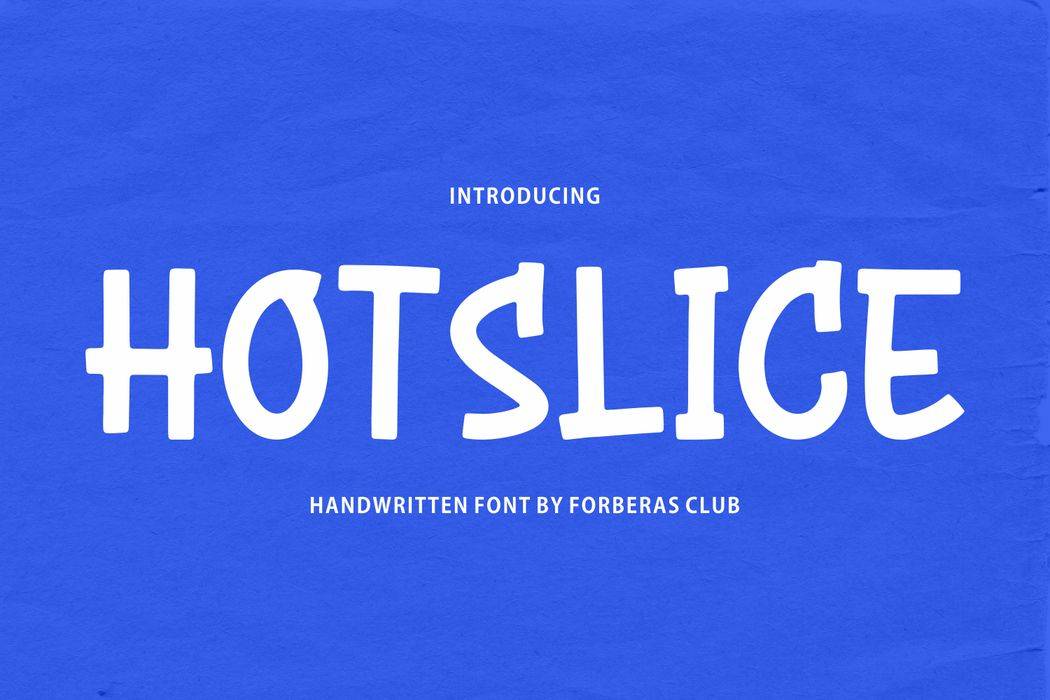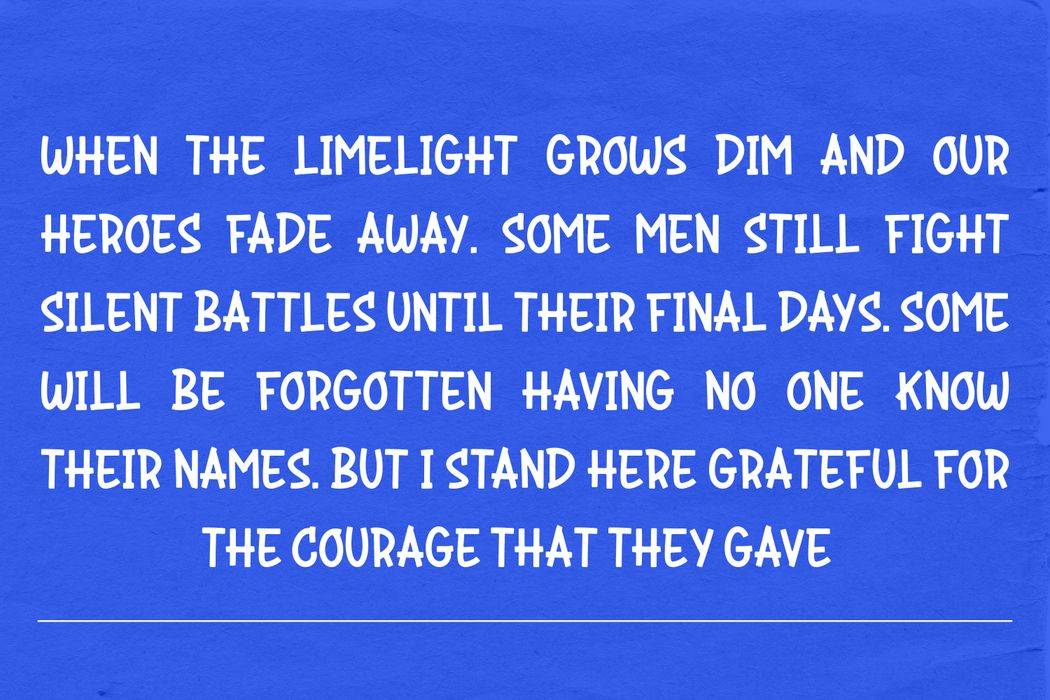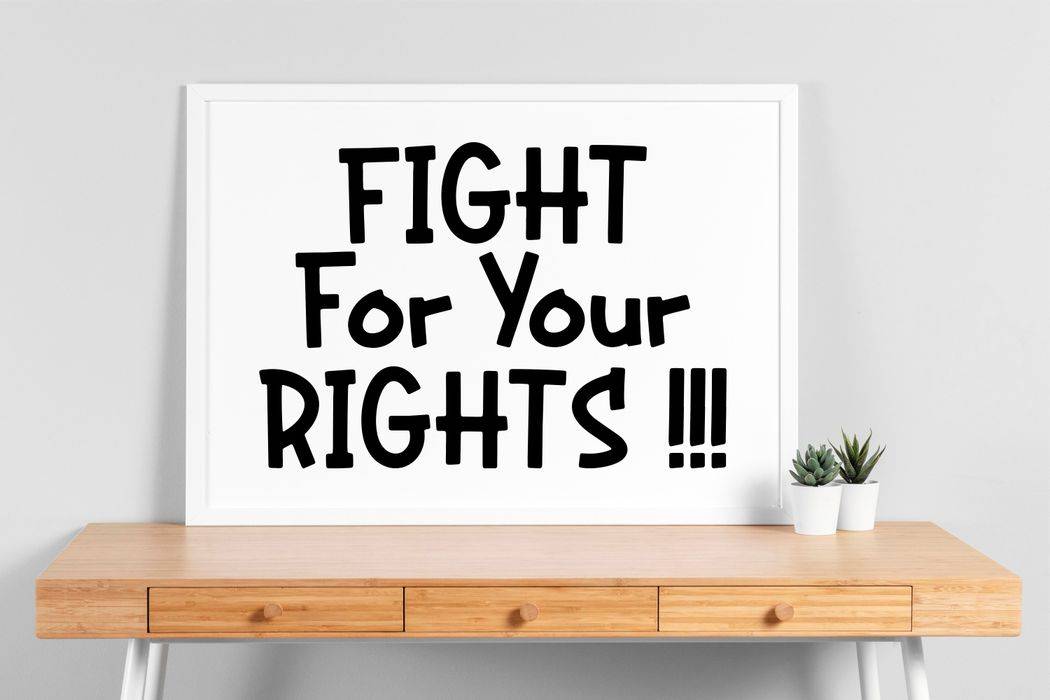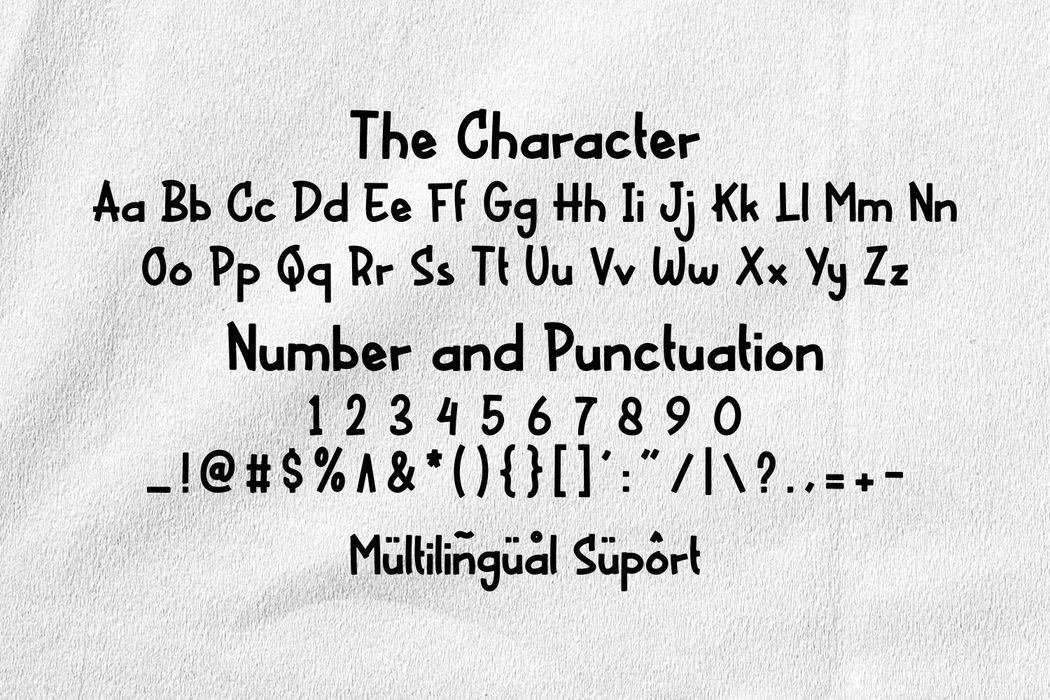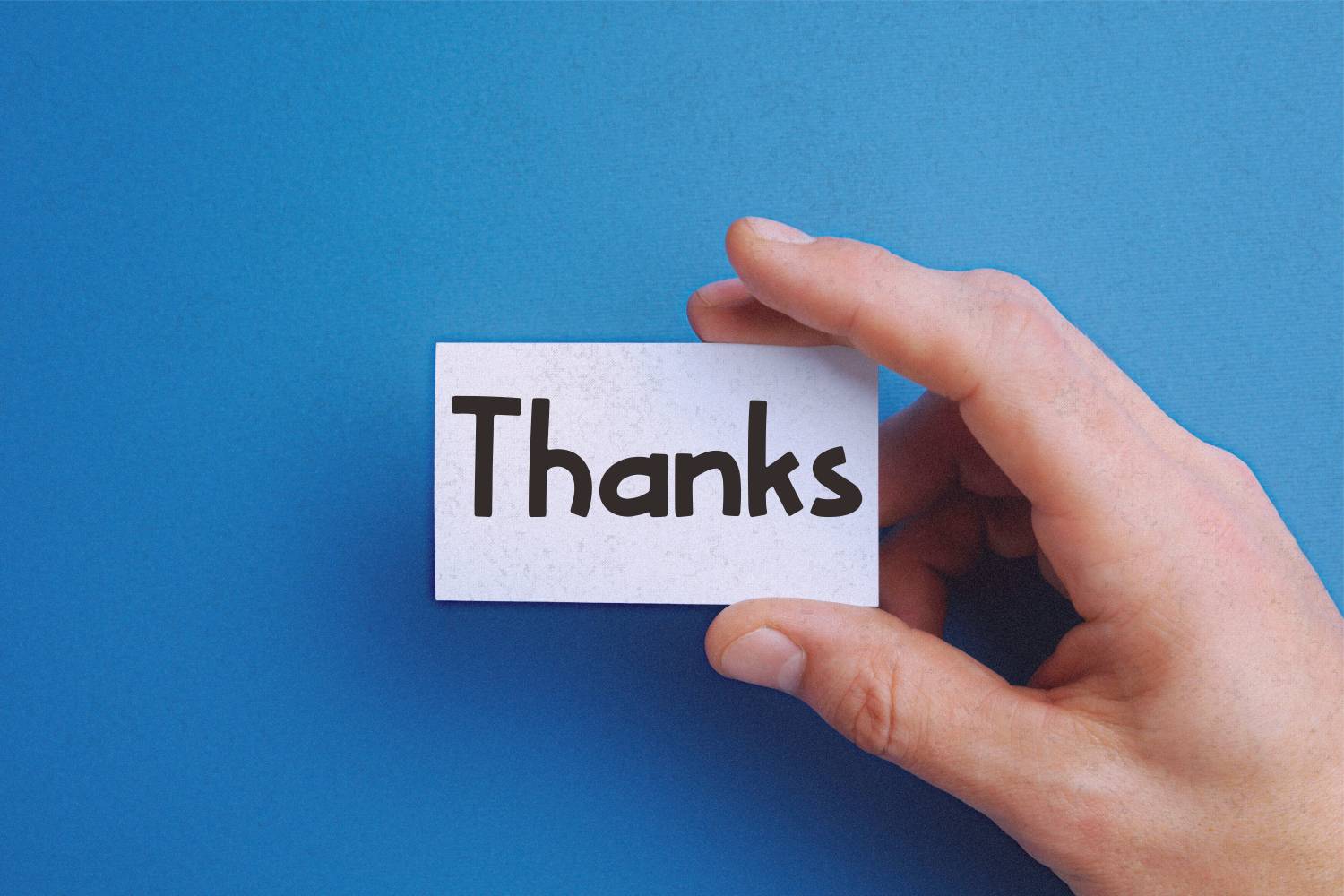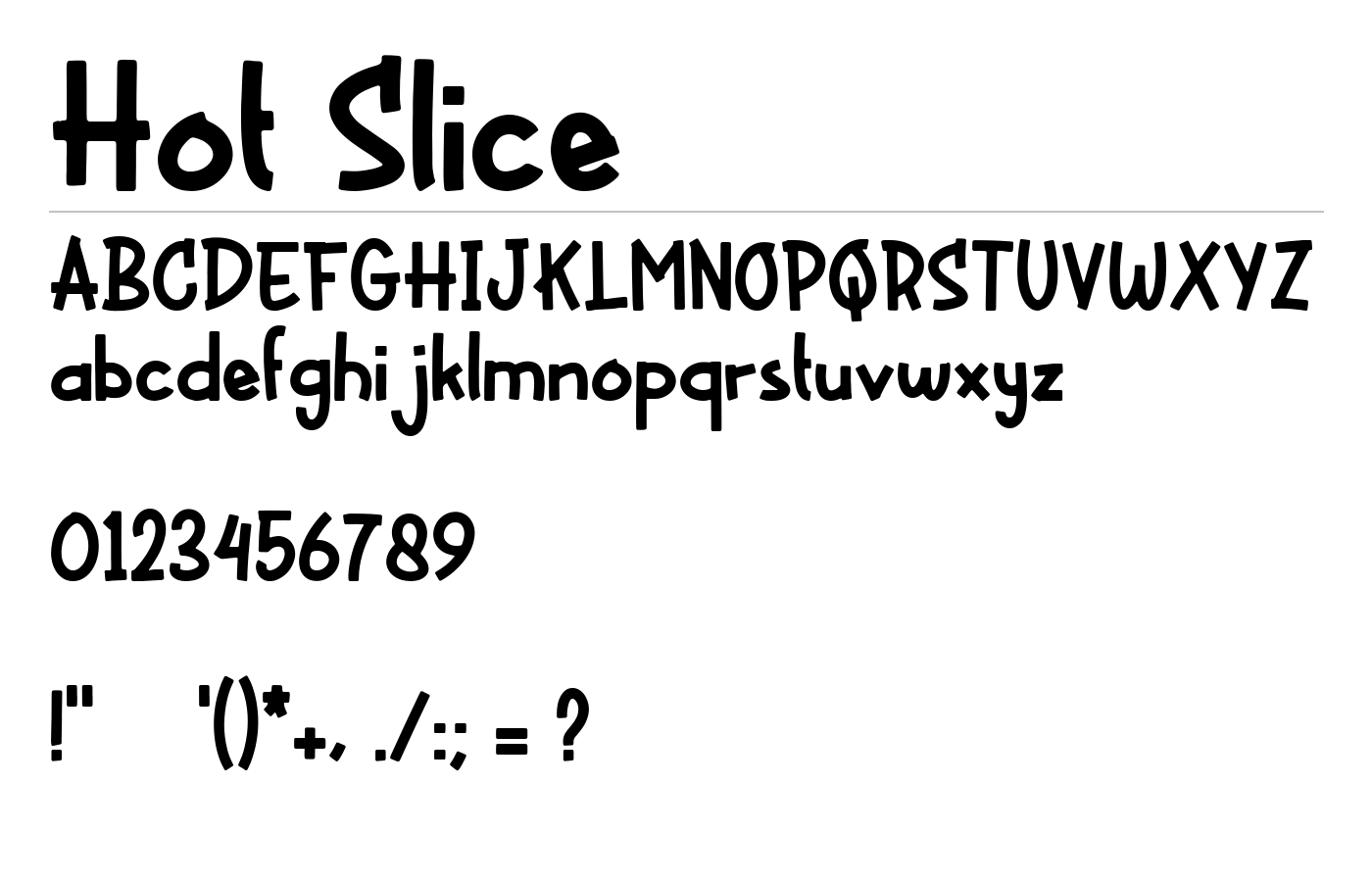
Hot Slice is a playful sans serif font with a casual, hand-drawn feel characterized by its uneven letterforms and lively strokes. Its rounded shapes, moderate x-height, and slightly irregular spacing make it ideal for friendly branding, fun posters, and informal headlines where a quirky and approachable vibe is desired. This font works best in creative projects that want to convey energy and personality without sacrificing readability.
Hot Slice Font
About Hot Slice Font